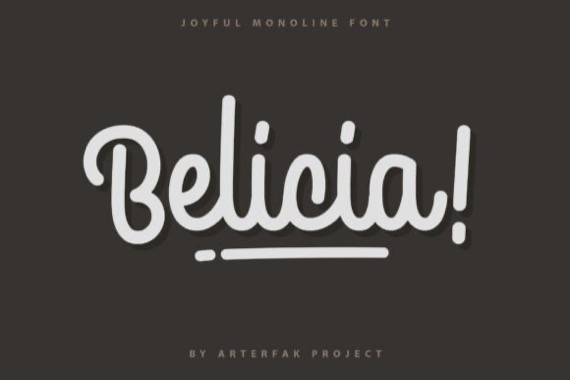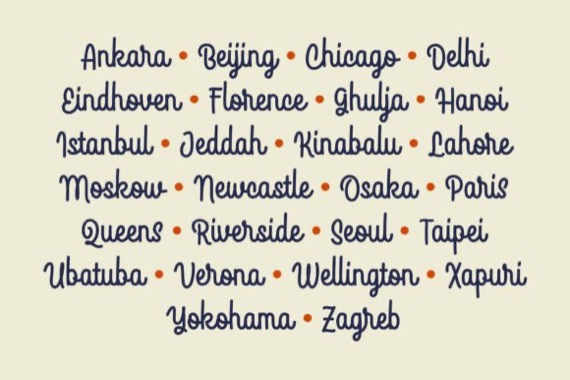
Introducing a new friendly and cool handwritten script from Arterfak Project, Elevate your designs with the beauty and charm of Belicia! A monoline font that exudes cheerfulness and elegant style. With its versatile and unslanted shape, this script font offers a flexible and playful impression, making it the perfect choice for your design projects.
Belicia is packed with special characters, which allows you to create truly unique and captivating designs. From food menus, posters, logos, logotypes, branding, headlines, weddings, flyers, quotes, labels, packaging, signage, signboards, and beyond, Belicia is a versatile font that adapts effortlessly to any creative endeavor. Additionally, it provides multilingual support, ensuring it complements your design needs.
Belicia! Handwritten Script Font